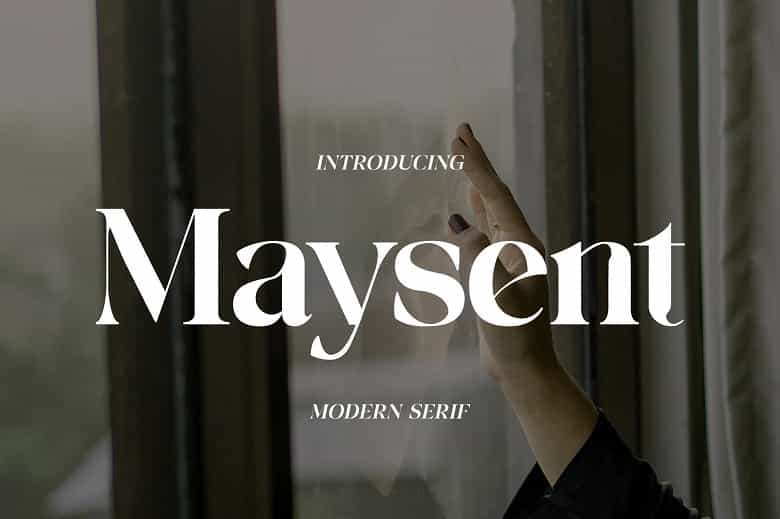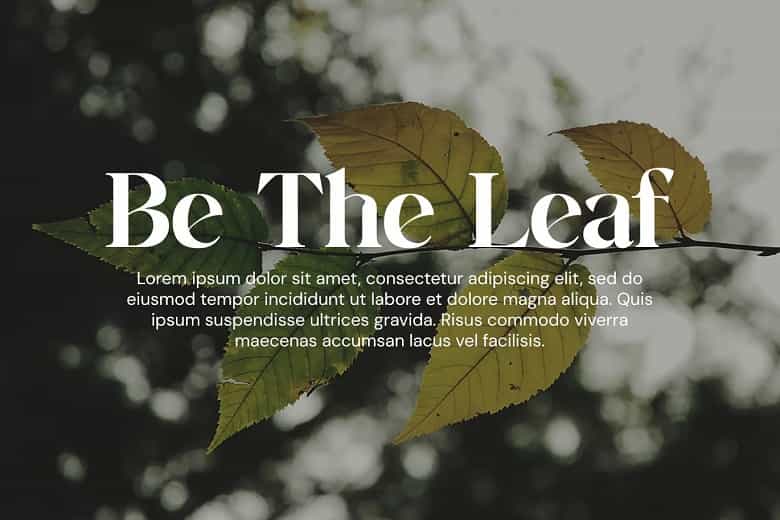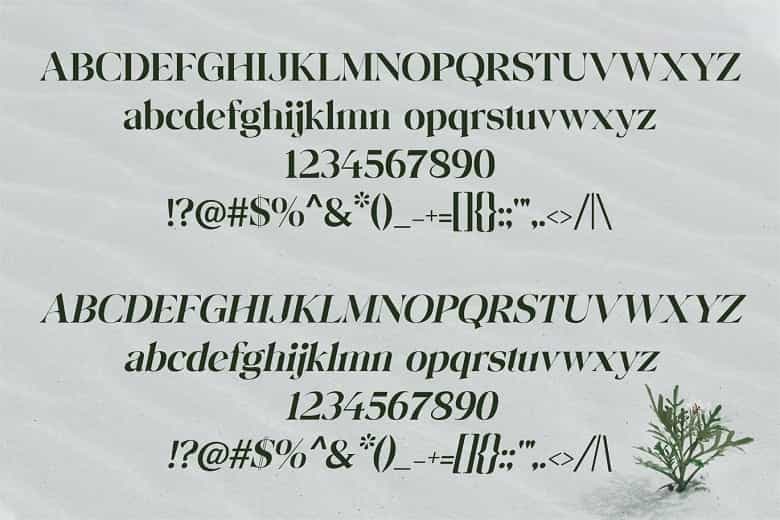
Maysent is a sleek and elegant serif font with modern glyphic serifs; perfect for branding, copy and even headlines. It is perfect for logos, product packaging, header, poster, merchandise, social media & greeting cards.